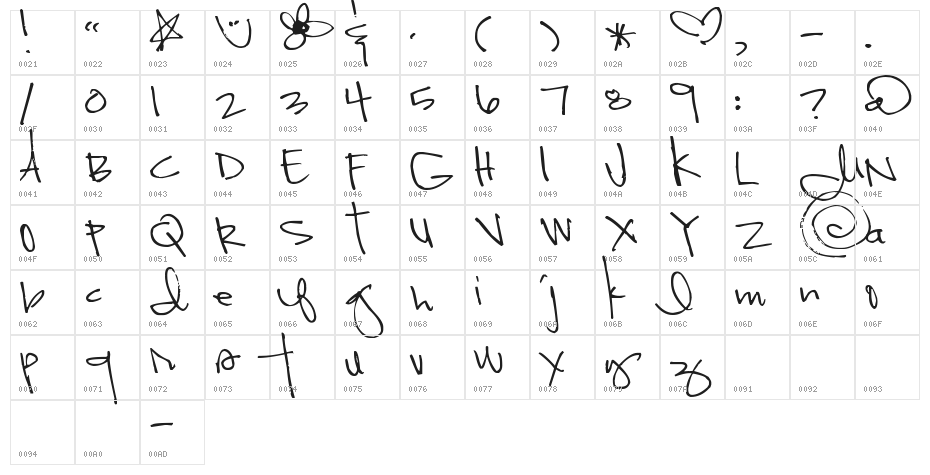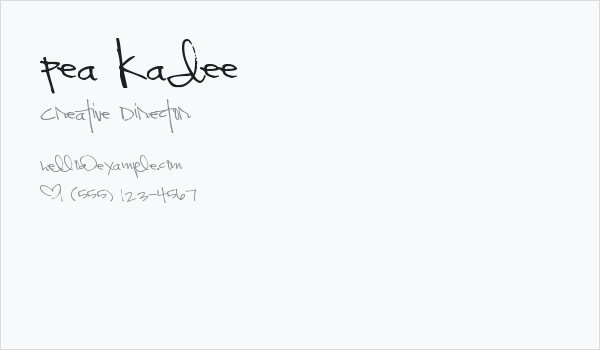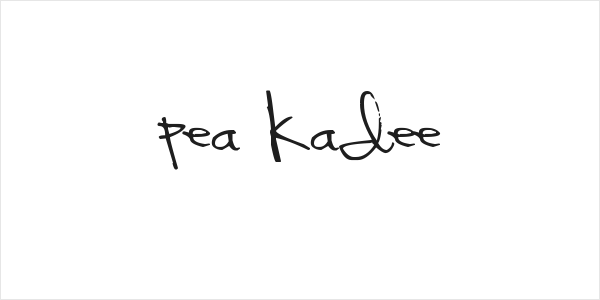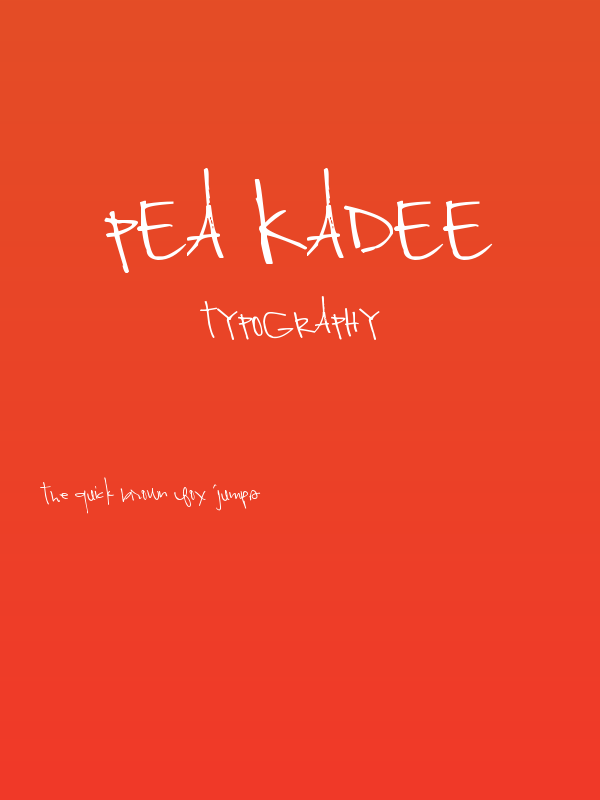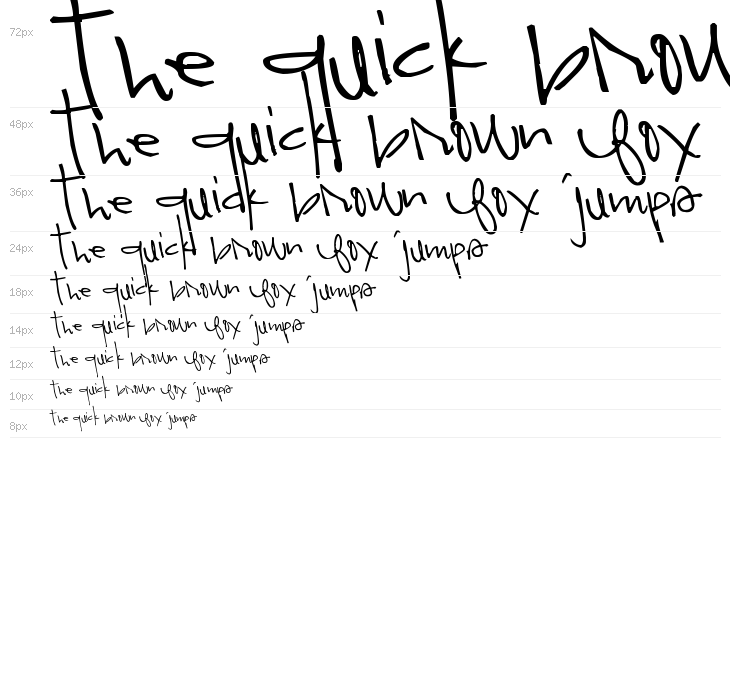
Pea Kadee Font
Pea Kadee Description
This font exudes a playful and casual handwritten style, characterized by its loose, flowing strokes and slightly irregular letterforms. The uppercase letters are bold and dynamic, with a sense of movement that adds energy to the text. The lowercase letters maintain a consistent style, with some letters featuring unique loops and curves that enhance the font's whimsical nature. Numbers and special characters follow the same lively design, making them stand out. Overall, this font captures a sense of spontaneity and creativity, perfect for projects that require a personal touch.